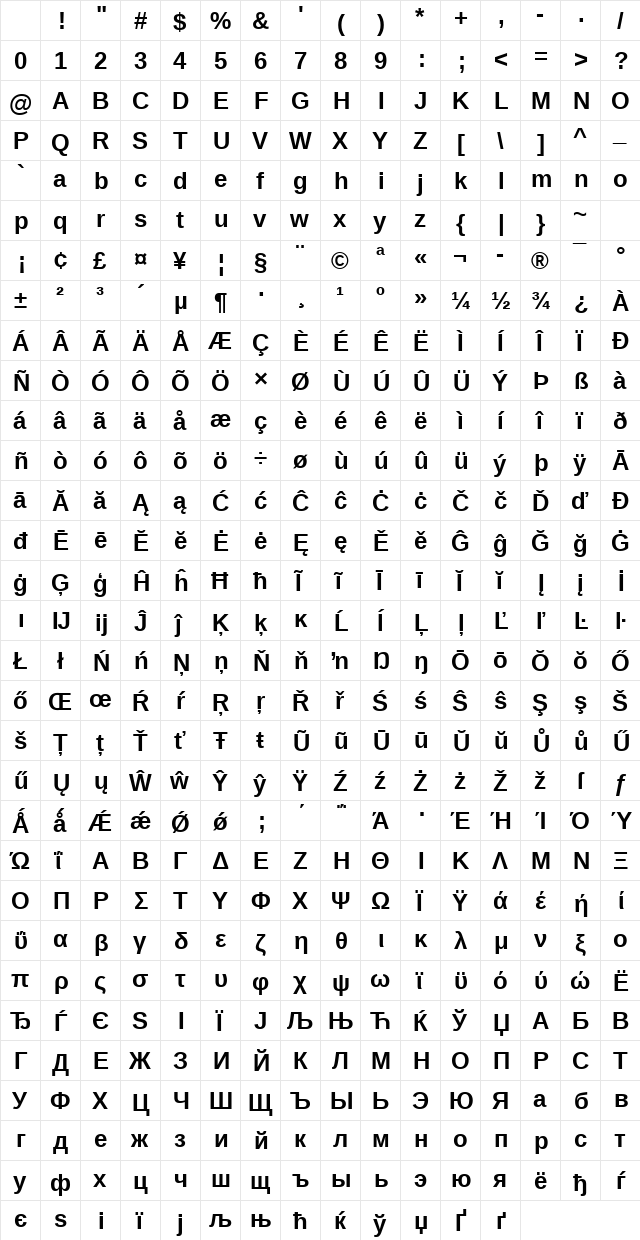
Complete Liberation Sans Bold glyph index. Displaying only characters natively supported by Liberation Sans Bold font.
Liberation Sans is a composed and adaptable typeface that performs quietly and consistently across a wide range of design contexts. Its bold stroke weight gives it real presence on the page.